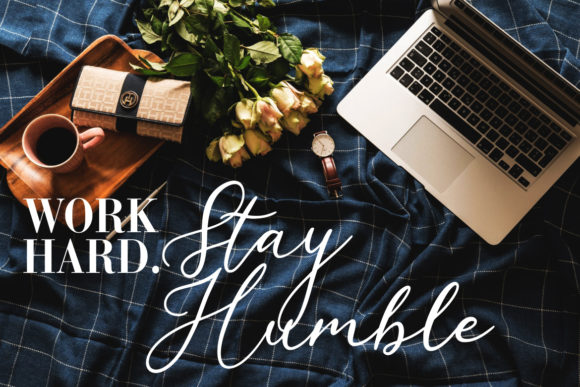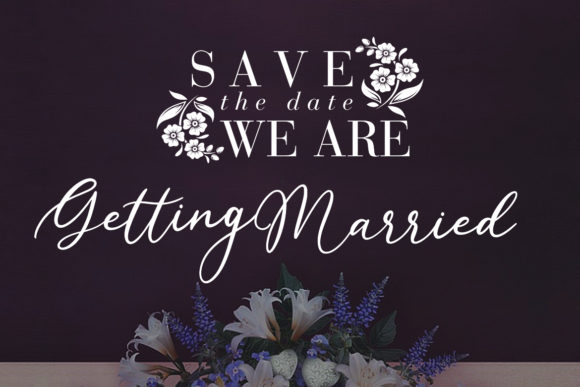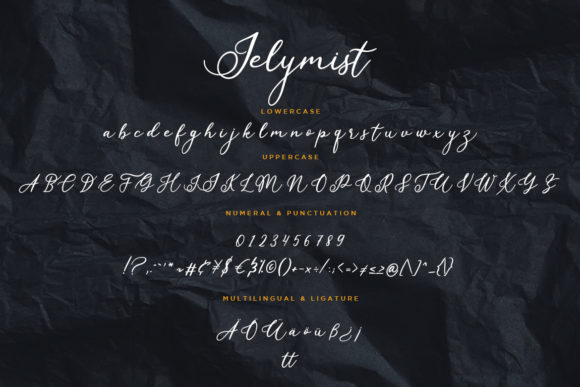
Introduction to Jelymist Font
You’ve spent hours crafting the perfect design concept, pouring over every detail to ensure it’s visually stunning. But what if you could take it to the next level with a single font? That’s where the Jelymist Font comes in – a classic calligraphy script with a cool twist that’s sure to turn any design project into a true standout.
Imagine having access to a versatile design resource that can elevate your creative projects with ease. With its elegant and sophisticated feel, the Jelymist Font is perfect for designers looking to add a touch of sophistication to their designs. Whether you’re working on a logo, brochure, or social media graphics, this high-quality font is sure to make a lasting impression.
Key Features of Jelymist Font
- Unique and Creative Design: The Jelymist Font is designed to add a touch of elegance and sophistication to any creative project, making it a valuable design resource.
- Transparent Background: The Jelymist Font features a transparent background, allowing for seamless integration with any design or background image.
- High Resolution: The Jelymist Font is designed to be used at high resolutions, ensuring that the text remains clear and legible even at large sizes.
- Perfect for Creative Projects: With its unique and creative design, the Jelymist Font is ideal for use in brochures, posters, business cards, and other creative projects where a touch of elegance is required.
Honest Review: Jelymist Font
As a designer, I’m always on the lookout for high-quality design resources to elevate my creative projects. Recently, I had the chance to try out the Jelymist Font, and here’s my honest review.
- Unique and playful design style that’s perfect for creative projects
- High quality, with clear and legible letterforms
- Supports a transparent background, making it easy to use in designs with complex backgrounds
- Only available in a limited number of weights and styles
- May not be suitable for formal or professional designs
Overall, I was impressed with the Jelymist Font’s unique design style and high quality. While it may have some limitations, it’s a great option for creative projects and designers on a budget. I’d definitely consider using it again in the future.
The Jelymist Font is a versatile and high-quality design resource that can elevate your creative project. With its transparent background and free download option, it’s an ideal choice for designers and non-designers alike.
Tips for Getting the Most Out of Jelymist Font
To get the most out of the Jelymist Font, use it in combination with other high-quality design resources, such as graphics and images. Experiment with different font sizes, colors, and arrangements to create visually appealing designs.
The Jelymist Font is suitable for a wide range of creative projects, including:
- Business presentations and reports
- Social media graphics and advertising
- Wedding invitations and event materials
- Blog posts and articles